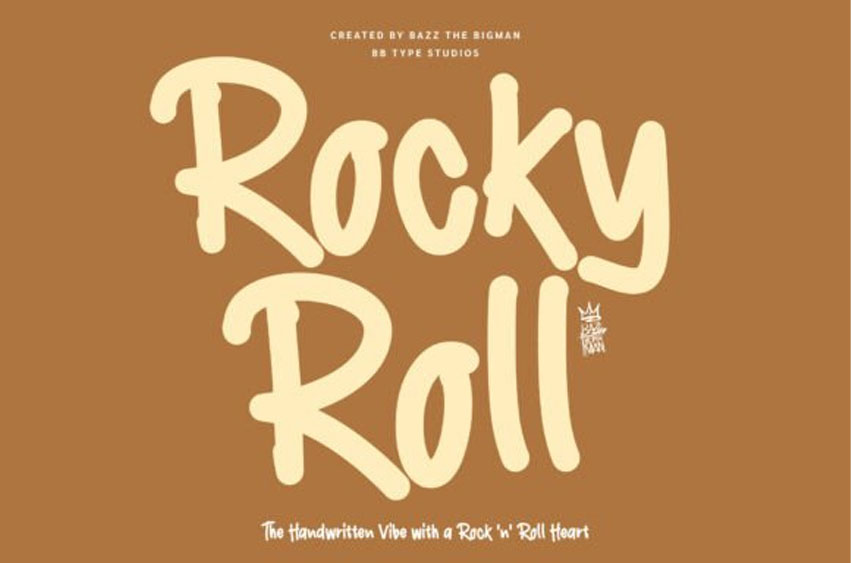
Rocky Roll Font
Rocky Roll Font: Channel your inner rebel with Rocky Roll! Has the mundanity of clean, everyday typefaces left you yearning for something new? Enter Rocky Roll, an unembellished, handcrafted display font, conceived for spirited designers eager to break the mold.
Imbued with the buoyant vitality of Rock & Roll, the audacious grunge of urban life, and the authentic touch of an impassioned jotting, Rocky Roll is stunningly flawed – perfectly imperfect. Make your mark with the effervescent energy of Rocky Roll.